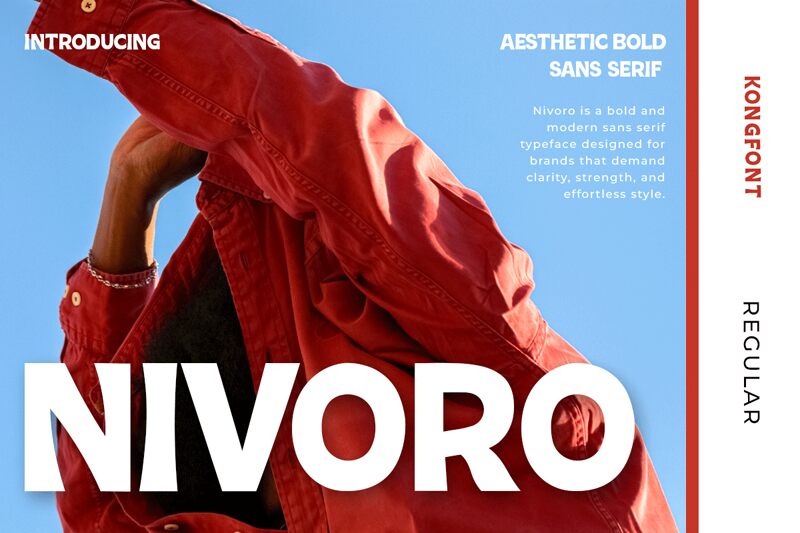
Nivora font is brought to you by Kong Font. This free font is inspired by some of the most popular and widely used modern fonts. Its structure is simple, geometric, and contemporary. The letters radiate strength, cleanliness, and impact; in short, all the main values behind the greatest sans-serifs.
Shop signs, packaging of consumer products, bags, posters, ads in newspapers or on the internet, business cards, identification cards, logos, company identity, real estate branding, automobile branding, and album covers can all benefit from Nivora.